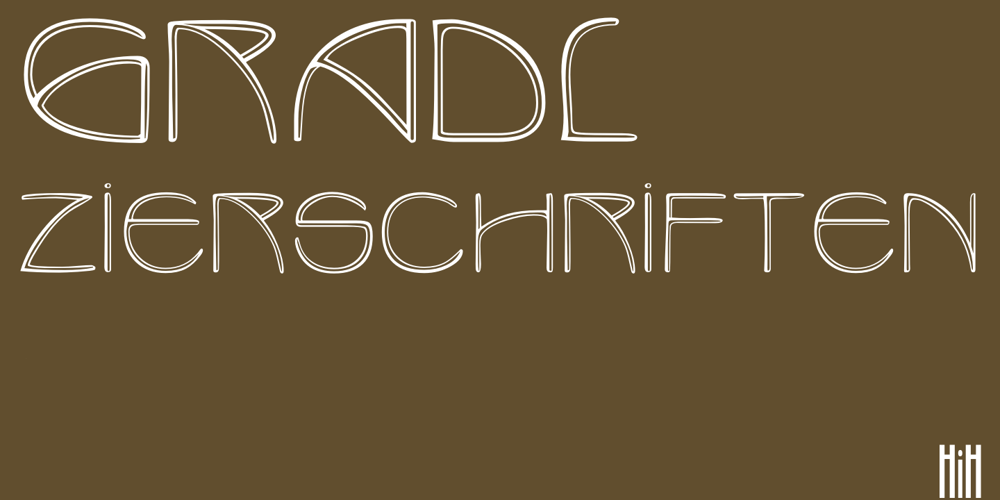
Gradl Zierschriften Font Family was designed by M.J. Gradl and published by HiH. Gradl Zierschriften contains 1 styles and family package options. Here is another design by jewelry designer Max Joseph Gradl. Zier is a verb, meaning to decorate, adorn or ornament; zierlich means decorative, elegant, fine, neat. Schrift means type. Zierschrift, therefore, means decorative type. Gradl Zierschriften is a decorative type in the Art Nouveau style, rather than the more ornate Victorian style. Very modern, very young, with an elegant simplicity of form. Maria Makela, in her book The Munich Secession (Princeton 1990) suggests that the frequent use of simple, flowing, organic forms that was so characteristic of Art Nouveau was a reaction against the growing complexity and rapid urbanization that resulted from 19th century industrialization. In keeping with that reaction is the hand-drawn quality that intentionally rejects a mechanistic mathematic precision of line rendering. Gradl Zierschriften preserves that hand-drawn quality. Designed with upper case only, this face was obviously intended for short headlines only and is best set at 18 points or larger. However, I don’t think you really get to experience the grace of this design until you get to 36 points or more. In the larger sizes, it is simply stunning. Please note that while most of the uppercase letterforms are repeated in the lower case for convenience, the ‘F’,‘L’ and ‘T’ are rendered a little narrower than in the uppercase to provide for visual variety. The font also includes a generous supply of ligatures for just the right fit … and just for the fun of using them. Three common ways of inserting a ligature, accented letter or other special character are: 1) Key in “ALT”+“0”+[ascii #]; for example ALT+0233 for the e-acute, 2) From within your application program, go to the INSERT menu and look for something like “Insert Symbol,” (this function is NOT available in all application programs) & 3) Cut & Paste from the CHARACTER MAP display that has been supplied by every generation of Windows Operating System that I can recall (All Programs>Accessories>System Tools). Isn’t it amazing what you can do? Don’t be afraid to experiment. If you back up your work, you have very little to lose and a lot to gain. Not only do you acquire a new tool, but by the very process you have learned how to continually expand your knowledge and skill base.